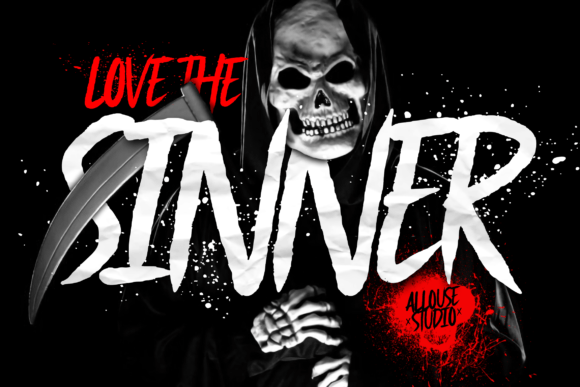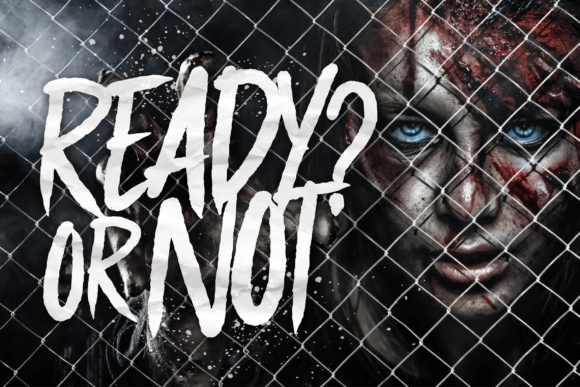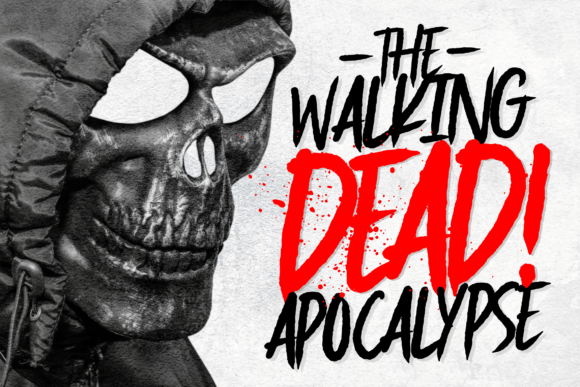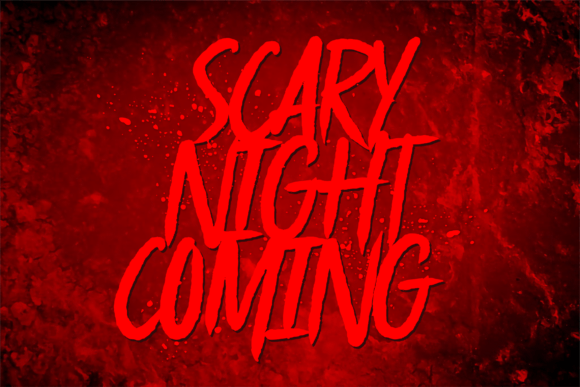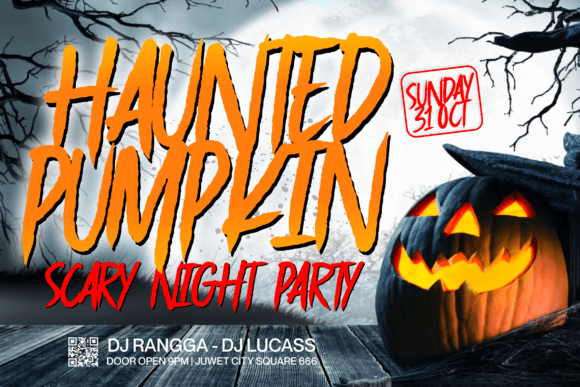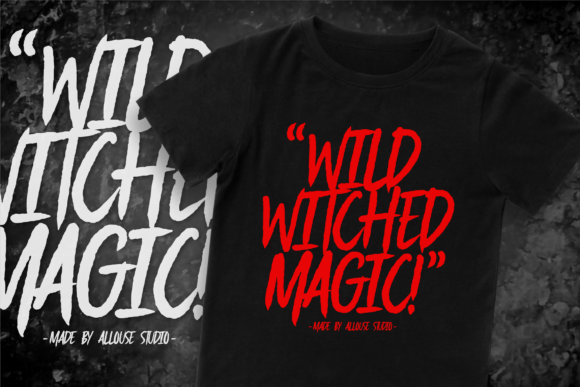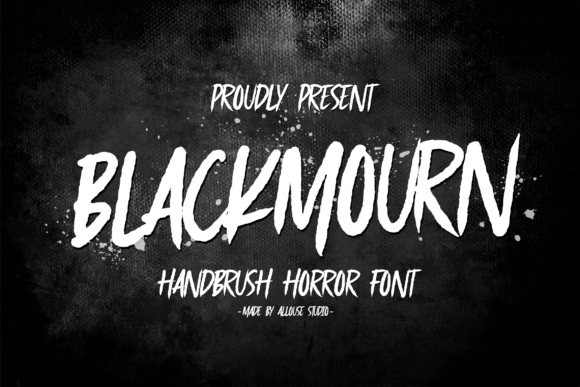
Unleash the Horror with Blackmourn Font: A Handbrush Font for Creepy Creations
Are you a designer or crafter looking for a unique and eerie font to add a touch of horror to your projects? Look no further than Blackmourn Font, a handbrush horror font that is perfect for creating creepy and captivating designs. In this article, we’ll dive into the world of Blackmourn Font, exploring its features, uses, and benefits for designers and crafters.
What is Blackmourn Font?
Blackmourn Font is a handbrush horror font that is designed to evoke a sense of eeriness and foreboding. With its rough, hand-painted texture and distressed edges, this font is perfect for creating designs that are both creepy and captivating. Whether you’re working on a product packaging project, a branding campaign, or a magazine spread, Blackmourn Font is sure to add a touch of horror to your designs.
Features of Blackmourn Font
So, what makes Blackmourn Font so special? Here are just a few of its key features:
- Handbrush texture: Blackmourn Font has a unique, handbrush texture that gives it a rough, organic feel.
- Distressed edges: The font’s distressed edges add to its eerie, horror-inspired vibe.
- High-quality design: Blackmourn Font is designed with high-quality craftsmanship in mind, ensuring that it looks great in any design.
- Versatile: This font is perfect for a wide range of design projects, from product packaging to branding and more.
Uses for Blackmourn Font
So, what can you use Blackmourn Font for? The possibilities are endless! Here are just a few ideas to get you started:
- Product packaging: Add a touch of horror to your product packaging with Blackmourn Font.
- Branding projects: Use Blackmourn Font to create a bold, eye-catching brand identity.
- Magazines and publications: Add some eerie elegance to your magazine spreads with Blackmourn Font.
- Social media: Use Blackmourn Font to create creepy, attention-grabbing social media posts.
- Crafting projects: Blackmourn Font is perfect for crafters who want to add a touch of horror to their DIY projects.
Benefits of Using Blackmourn Font
So, why should you choose Blackmourn Font for your design projects? Here are just a few benefits of using this amazing font:
- Unique and eye-catching: Blackmourn Font is a one-of-a-kind font that is sure to grab attention.
- Eerie and atmospheric: This font is perfect for creating designs that are creepy and atmospheric.
- Versatile: This font can be used for a wide range of design projects, from product packaging to branding and more.
High-quality craftsmanship: Blackmourn Font is designed with high-quality craftsmanship in mind, ensuring that it looks great in any design.
Tips for Using Blackmourn Font
Here are a few tips for using Blackmourn Font in your design projects:
- Experiment with different colors: Try pairing Blackmourn Font with different colors to create a unique and eye-catching design.
- Use it sparingly: Because Blackmourn Font is so bold and eye-catching, it’s best to use it sparingly to avoid overwhelming your design.
- Pair it with other fonts: Try pairing Blackmourn Font with other fonts to create a unique and interesting design.
Blackmourn Font is a unique and eerie handbrush horror font that is perfect for designers and crafters who want to add a touch of horror to their projects. With its rough, hand-painted texture and distressed edges, this font is sure to grab attention and evoke a sense of eeriness. Whether you’re working on a product packaging project, a branding campaign, or a crafting project, Blackmourn Font is a great choice. So why wait? Download Blackmourn Font today and start creating your own creepy and captivating designs!